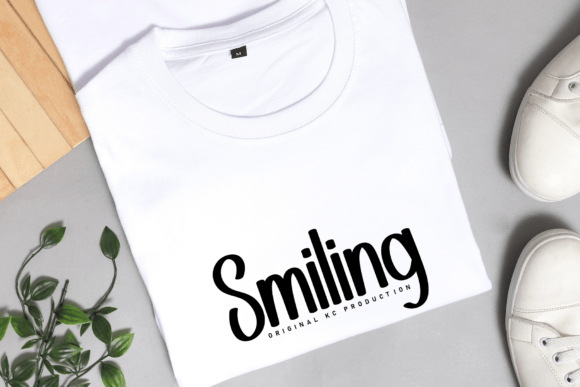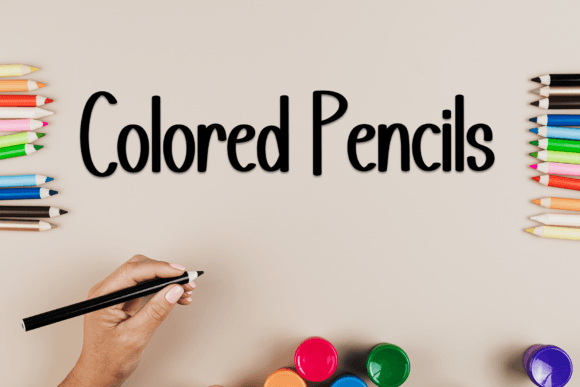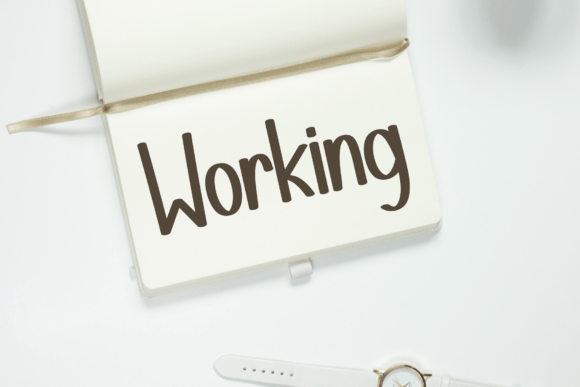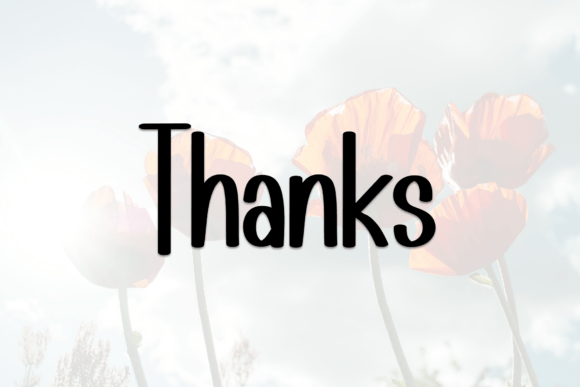
The Goodtime Font: A Relaxed yet Luxurious Addition to Your Design Arsenal
I’ll never forget the time I was working on a wedding invitation project, and my client asked for a font that was both elegant and casual. I scoured the internet, tried out dozens of fonts, but nothing seemed to fit the bill. That was until I stumbled upon the Goodtime font. With its marker-drawn feel and relaxed vibe, it was love at first sight! In this article, I’ll share my experience with the Goodtime font, its features, and how to make the most of it in your designs.
An Honest Review of Goodtime Font
What I Love About Goodtime Font
- ✨ The relaxed and sporty feel that makes it perfect for a wide range of design projects
- ✅ The luxurious and elegant vibe that adds a touch of sophistication to any design
- 🎉 The versatility of the font, which works well for branding, logos, wedding supplies, greeting cards, fashion, lookbooks, and marketing promotions
- 👍 The font’s casual yet refined aesthetic, making it suitable for designs that require a balance of elegance and approachability
While Goodtime font is an excellent addition to any design project, there are a few quirks to be aware of:
- ⚠️ Some users have reported issues with kerning, which can affect the overall appearance of the text
- 🤔 The font may not be suitable for very small text sizes, as it can become a bit blurry
The Story Behind Goodtime Font
Goodtime font was designed with the intention of creating a font that captures the essence of a marker-drawn feel. The designer aimed to create a font that is both elegant and casual, making it perfect for a wide range of design projects. With its relaxed and sporty vibe, Goodtime font has become a popular choice among designers and crafters.
| Font Name | Goodtime Font |
| Author | KC Production |
Q: What is Goodtime font best suited for?
A: Goodtime font is perfect for branding, logos, wedding supplies, greeting cards, fashion, lookbooks, marketing promotions, and any design project that requires a relaxed yet luxurious feel.
Q: Is Goodtime font suitable for small text sizes?
A: While Goodtime font can be used for small text sizes, it may not be the best choice, as it can become a bit blurry. It’s best used for larger text sizes or headlines.